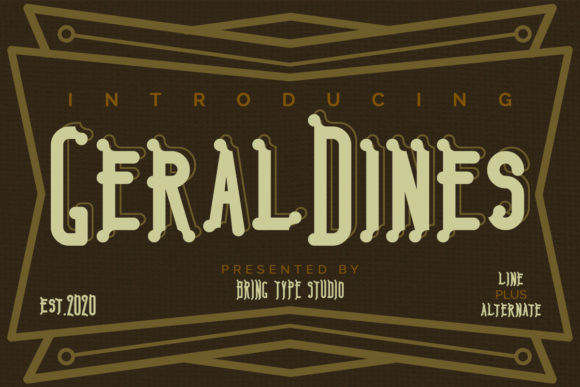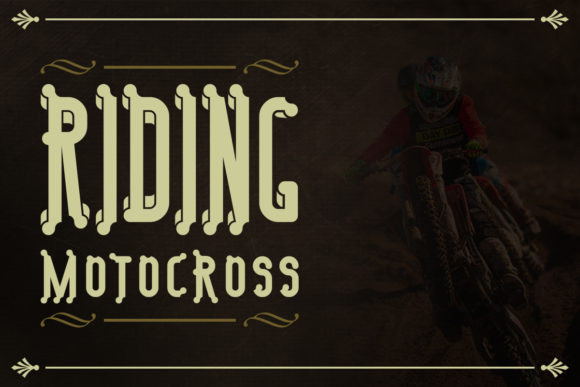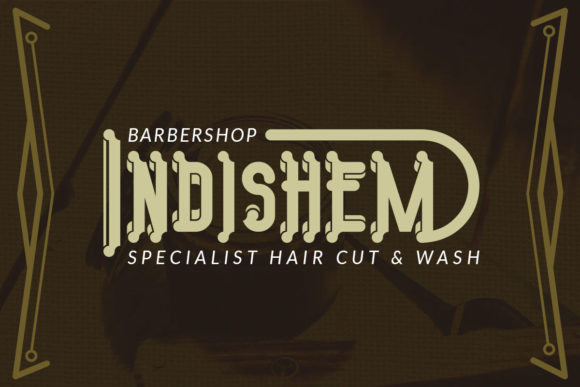
Geraldines Font
Geraldines is an incredibly unique and fun display font. It can easily be matched to an incredibly large set of projects, so add it to your creative ideas and notice how it makes them stand out!